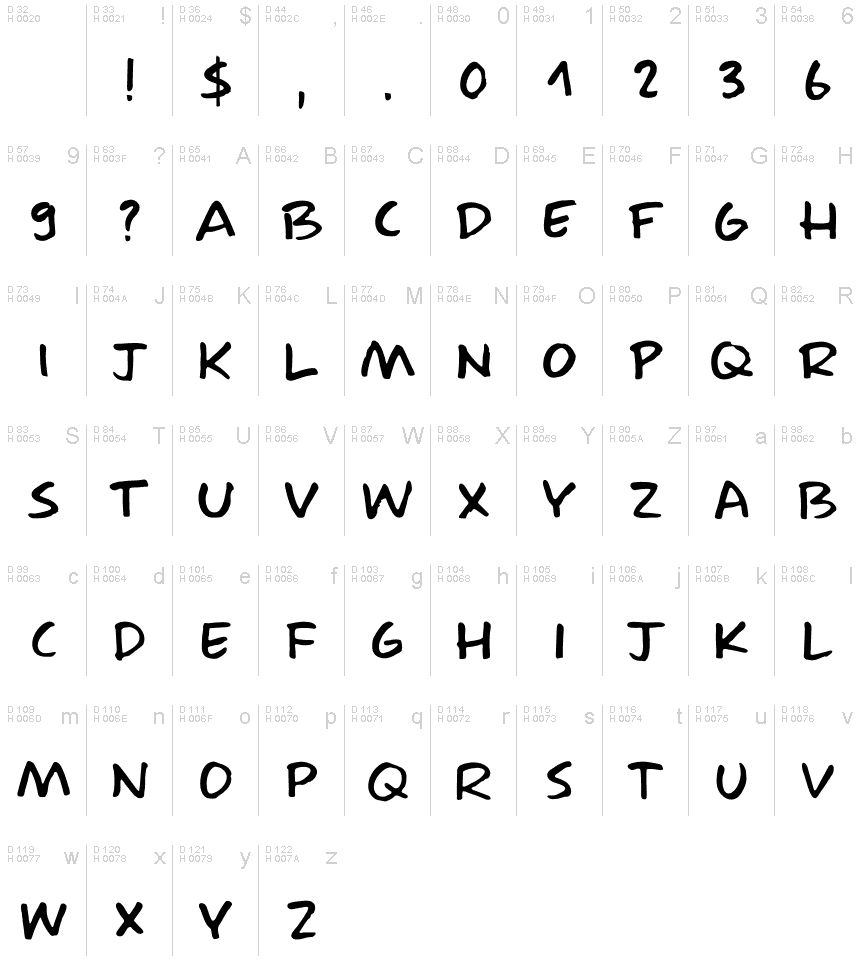
Radical Fortune DEMO Regular
Radical Fortune, the exquisite handwritten font crafted by David Kerkhoff, is a perfect addition to your design toolkit. With its semi-expanded width and semi-bold typeface, this font is ideal for creating eye-catching headings, titles, and logos. Its unique style imbues your projects with an edgy yet playful vibe that makes it the perfect fit for everything from album covers to fashion magazines. Whether you're designing a brochure, poster or website, Radical Fortune adds a touch of elegance and sophistication to any project. Make your designs stand out with the bold and beautiful Radical Fortune!